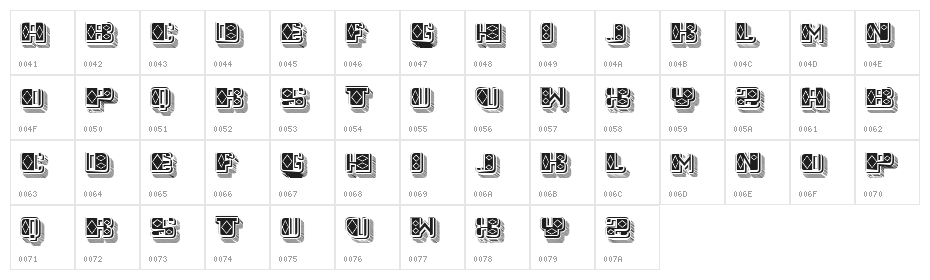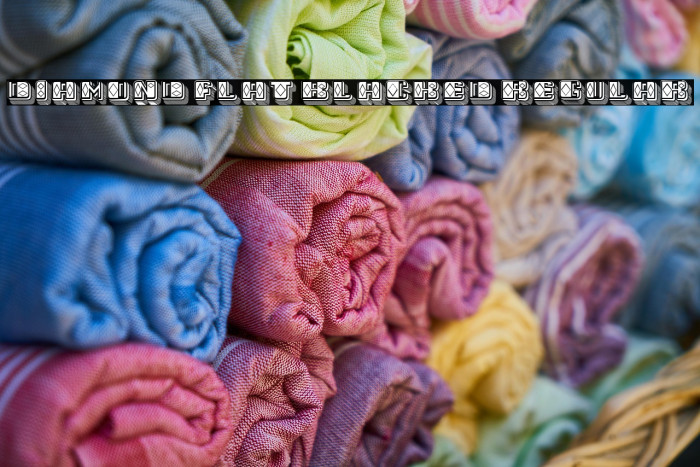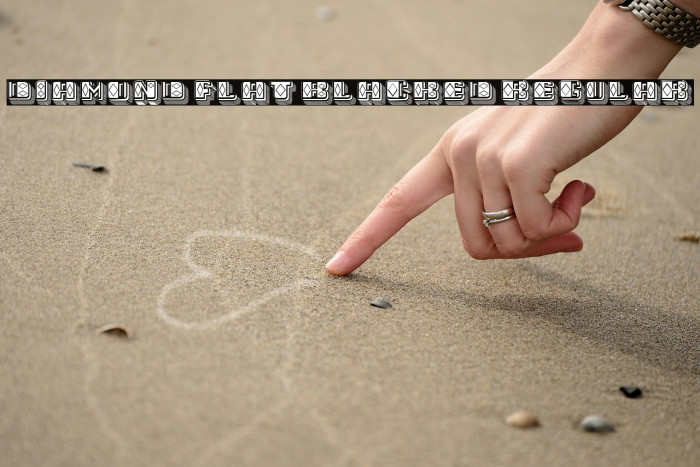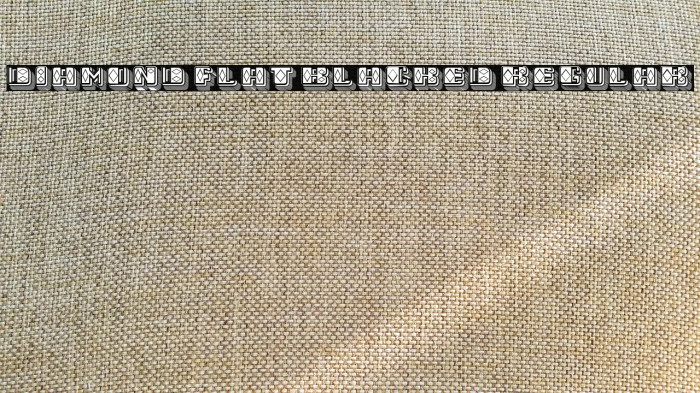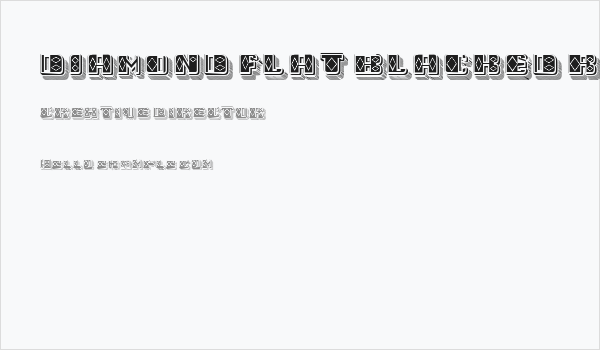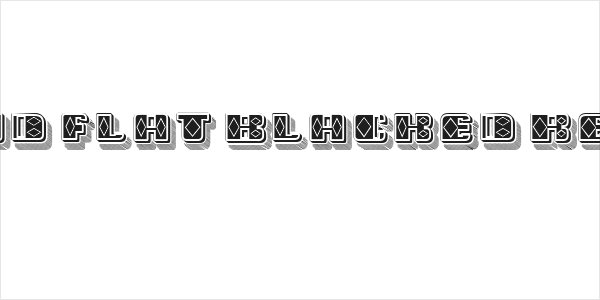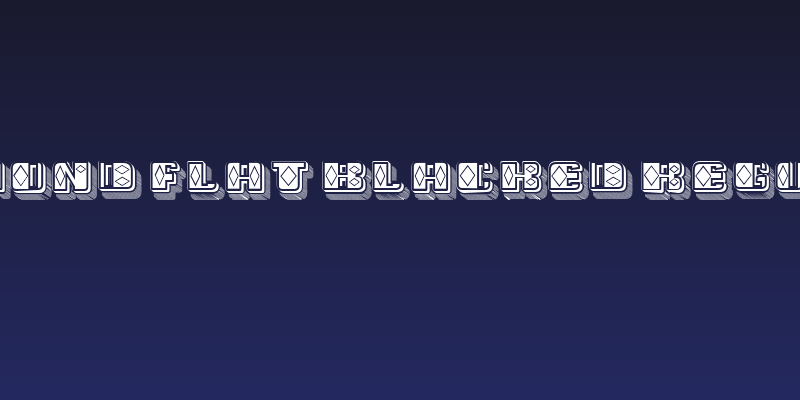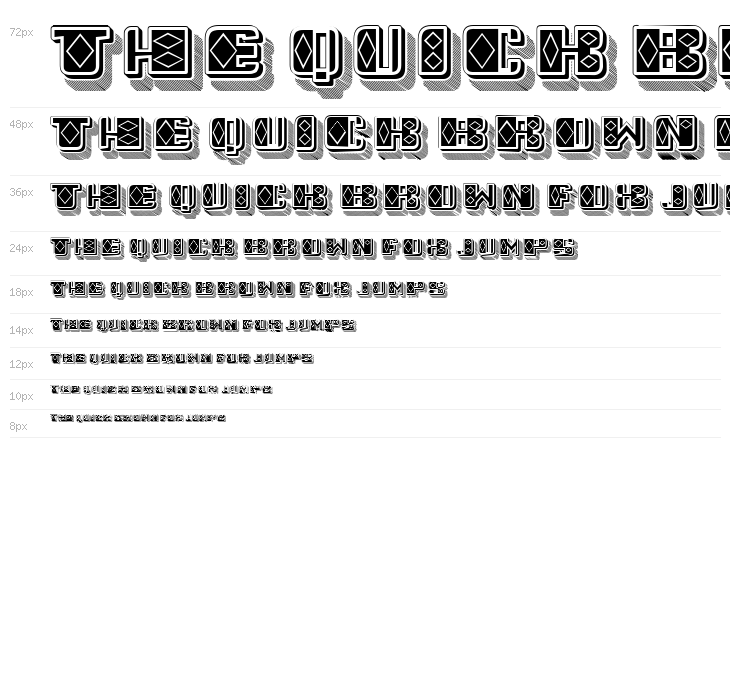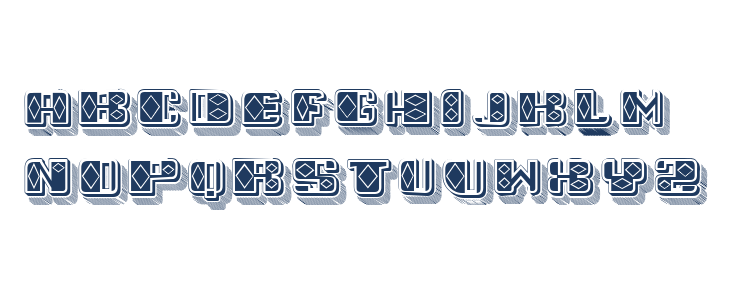
Diamond Flat Blacked Regular Font
Diamond Flat Blacked Regular Description
This font features a bold, geometric design with a three-dimensional effect, giving each character a distinct, block-like appearance. The letters are constructed with sharp angles and straight lines, creating a modern and industrial feel. The use of shading and outlines adds depth, making the characters stand out prominently. This style is eye-catching and suitable for projects that require a strong visual impact. The font's unique structure and bold presence make it ideal for creative and artistic applications.
Proposed ProjectsIdeal for posters, logos, branding, and any design requiring a strong visual impact.